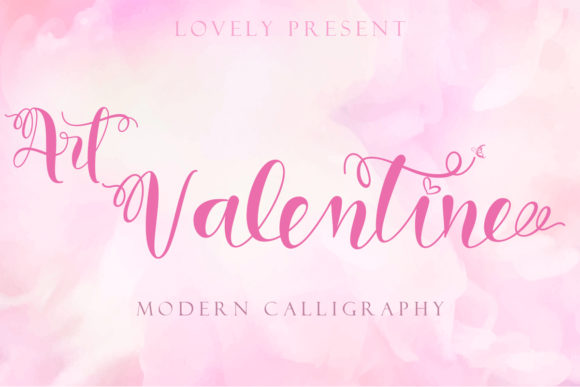
The Ultimate Guide to Art Valentine Font: A Designer’s Dream Come True
I’ll never forget the time I was working on a Valentine’s Day project for a client, and I just couldn’t find the perfect font to convey the sweetness and romance of the occasion. I scoured the internet, tried out dozens of fonts, but nothing seemed quite right. That was until I stumbled upon the Art Valentine font. ✨ It was love at first sight! In this article, I’ll share my experience with this beautiful font, its features, and how to make the most of it in your designs.
An Honest Review of Art Valentine Font
• ✨ Unique and Whimsical Design: Art Valentine font is a stunning handwritten font that exudes romance and playfulness, making it perfect for Valentine’s Day projects, weddings, and other celebrations.
• ✅ PUA Encoded: The font is PUA encoded, which means you can easily access all the glyphs and swashes to add a personal touch to your designs.
• 💕 Versatile: This font is not limited to Valentine’s Day projects; it’s also great for creating invitations, logos, banners, posters, and more.
While Art Valentine font is amazing, there are a few things to keep in mind: 🤔
• ⚠️ Glyph Overload: With so many glyphs and swashes available, it’s easy to get overwhelmed. Take some time to explore the font and plan your design carefully.
• ⚠️ Legibility: As with any handwritten font, legibility can be a concern, especially at smaller sizes. Make sure to test the font in your design to ensure it works well for your purpose.
The Backstory of Art Valentine Font
Art Valentine font was designed with love and care by a talented font designer who wanted to create a unique and special font for Valentine’s Day. The designer drew inspiration from traditional handwriting and infused it with a modern twist to create a font that’s both nostalgic and fresh. 💌
A: PUA (Private Use Area) encoding allows you to access additional glyphs and swashes within the font, giving you more creative freedom and flexibility in your designs.